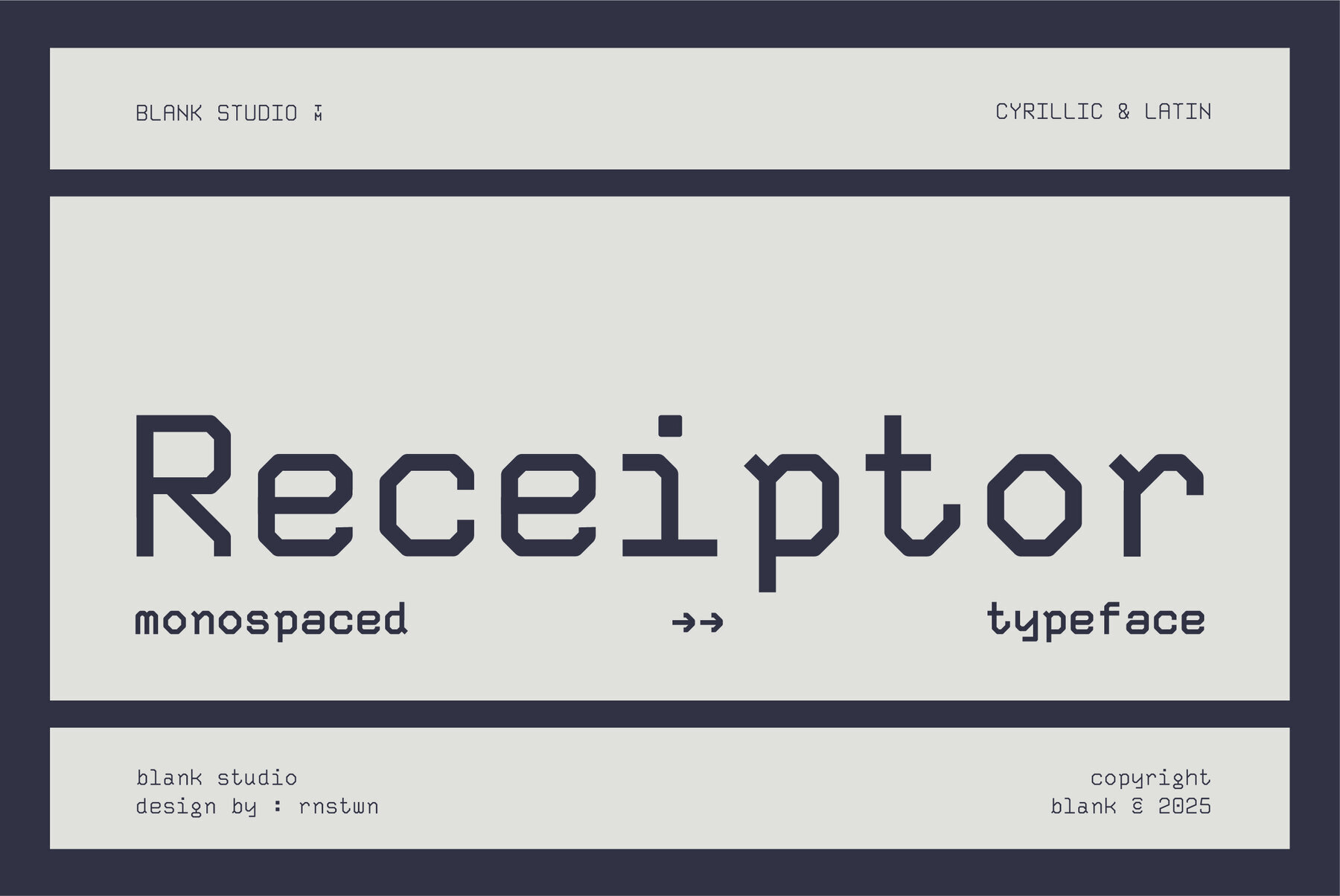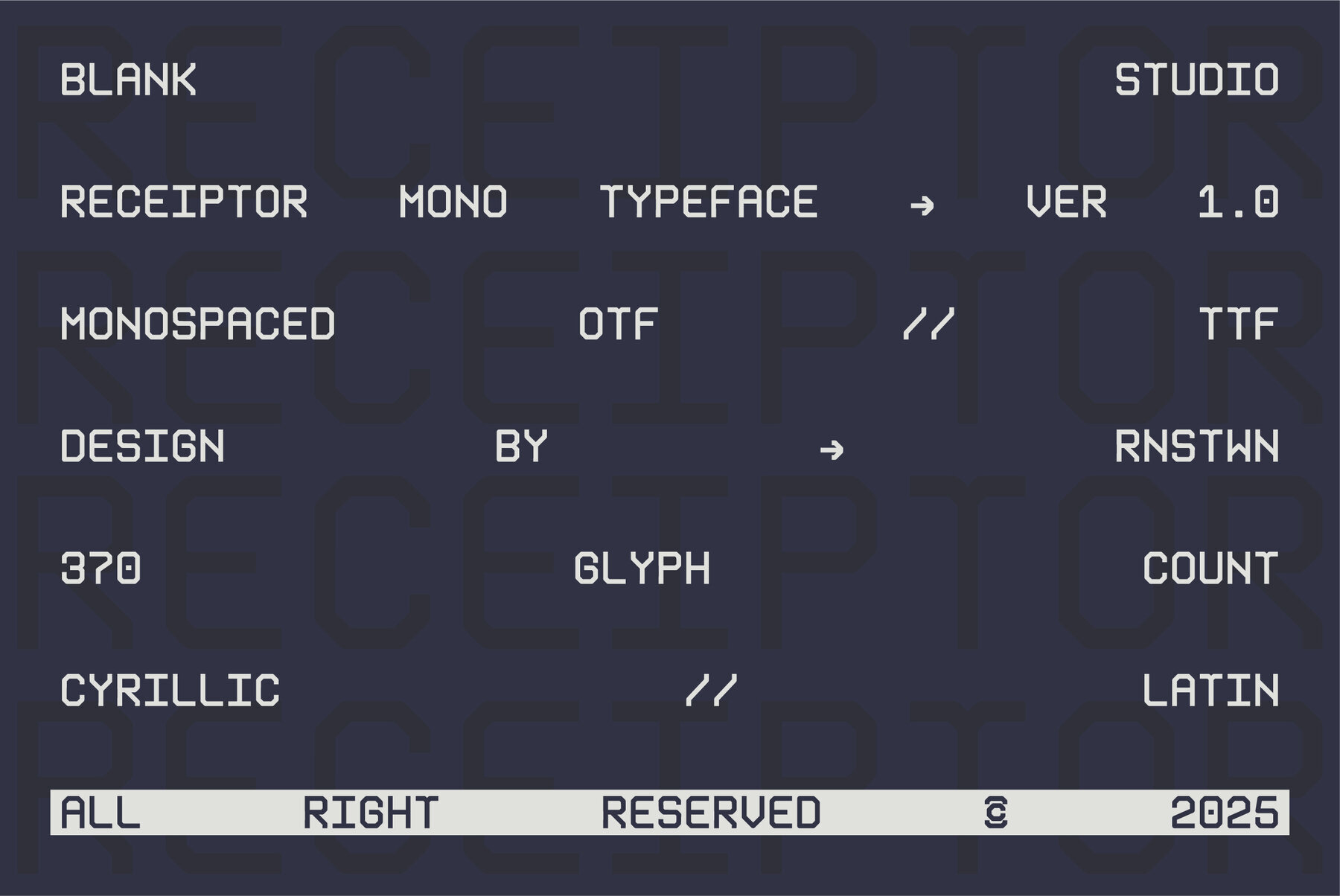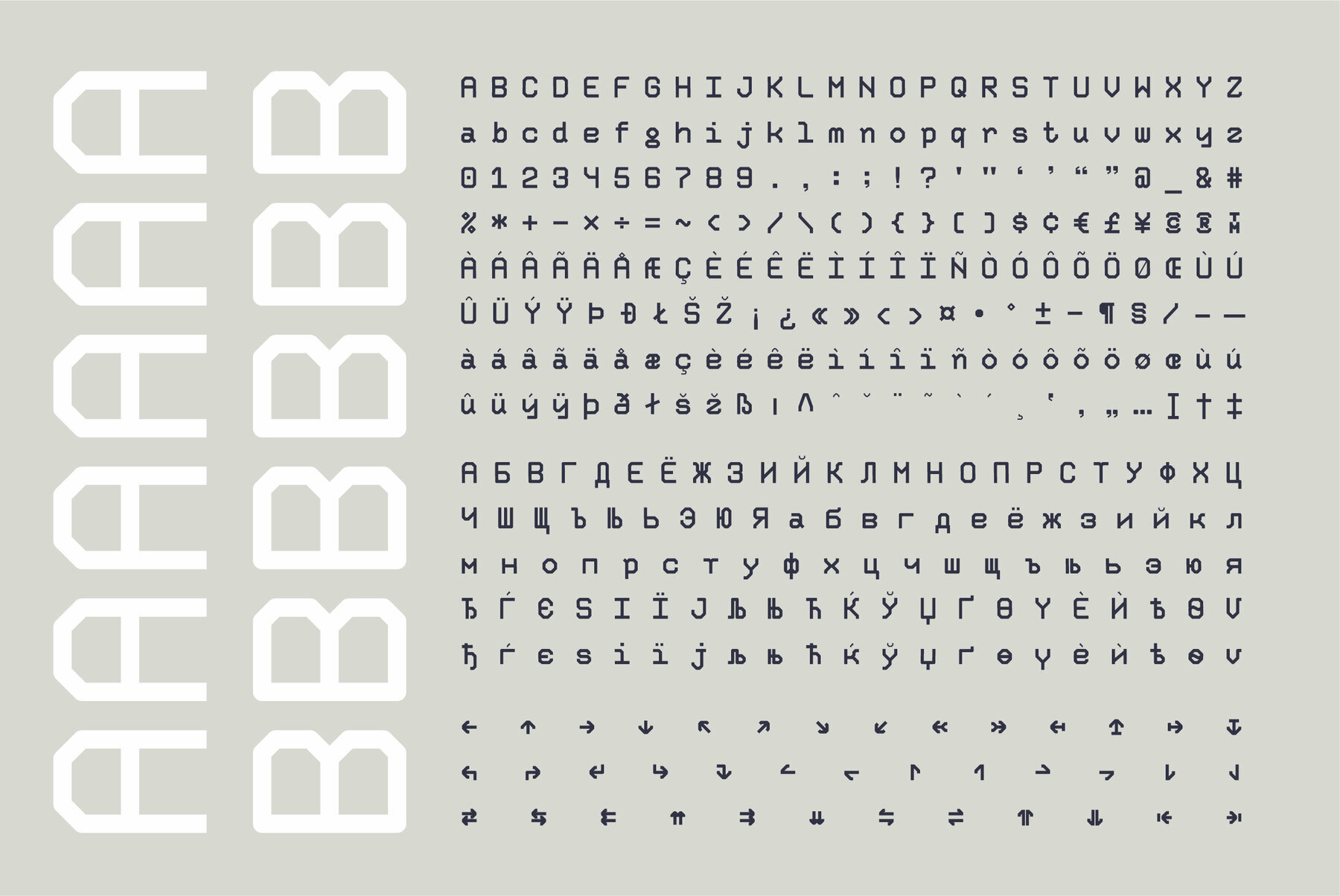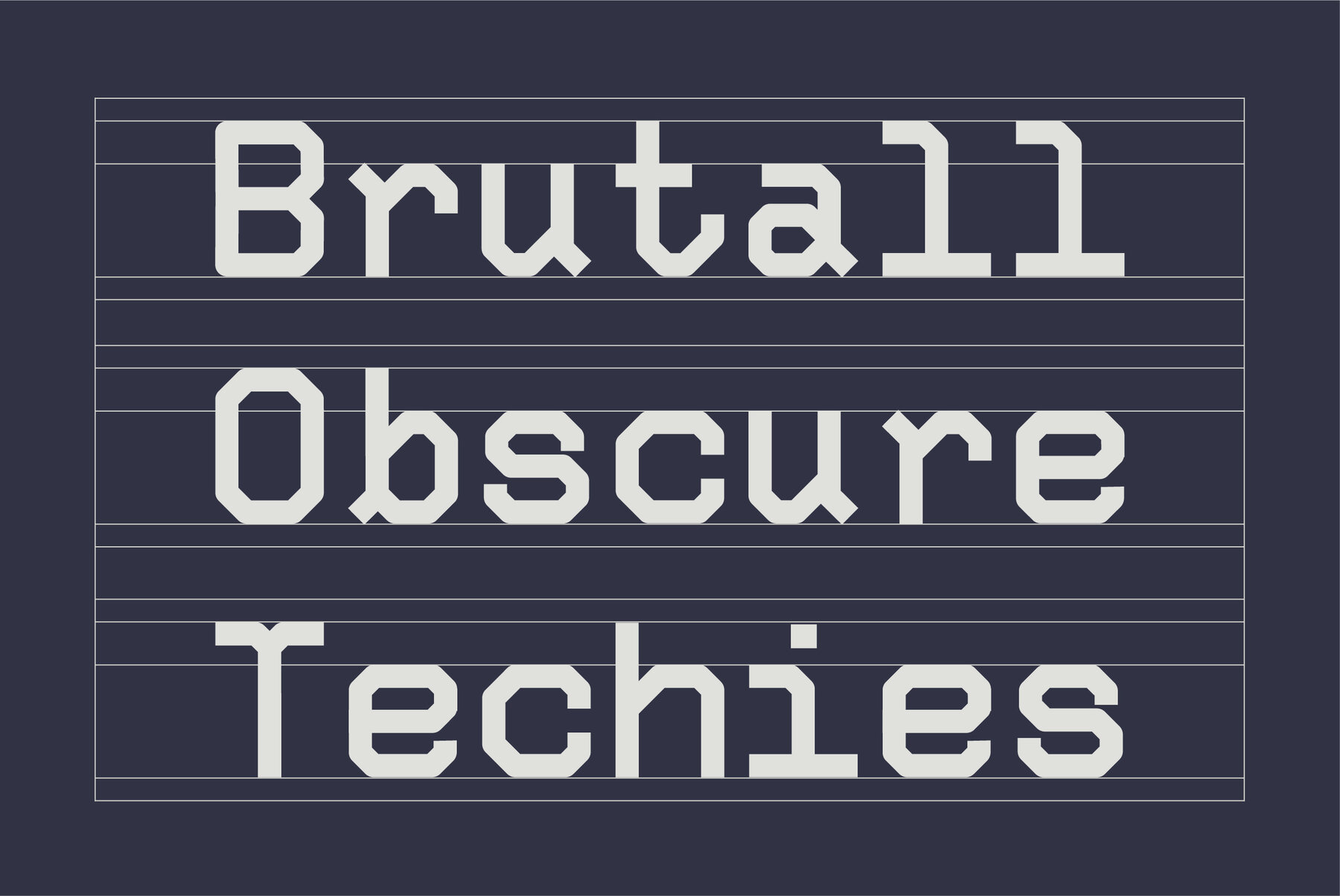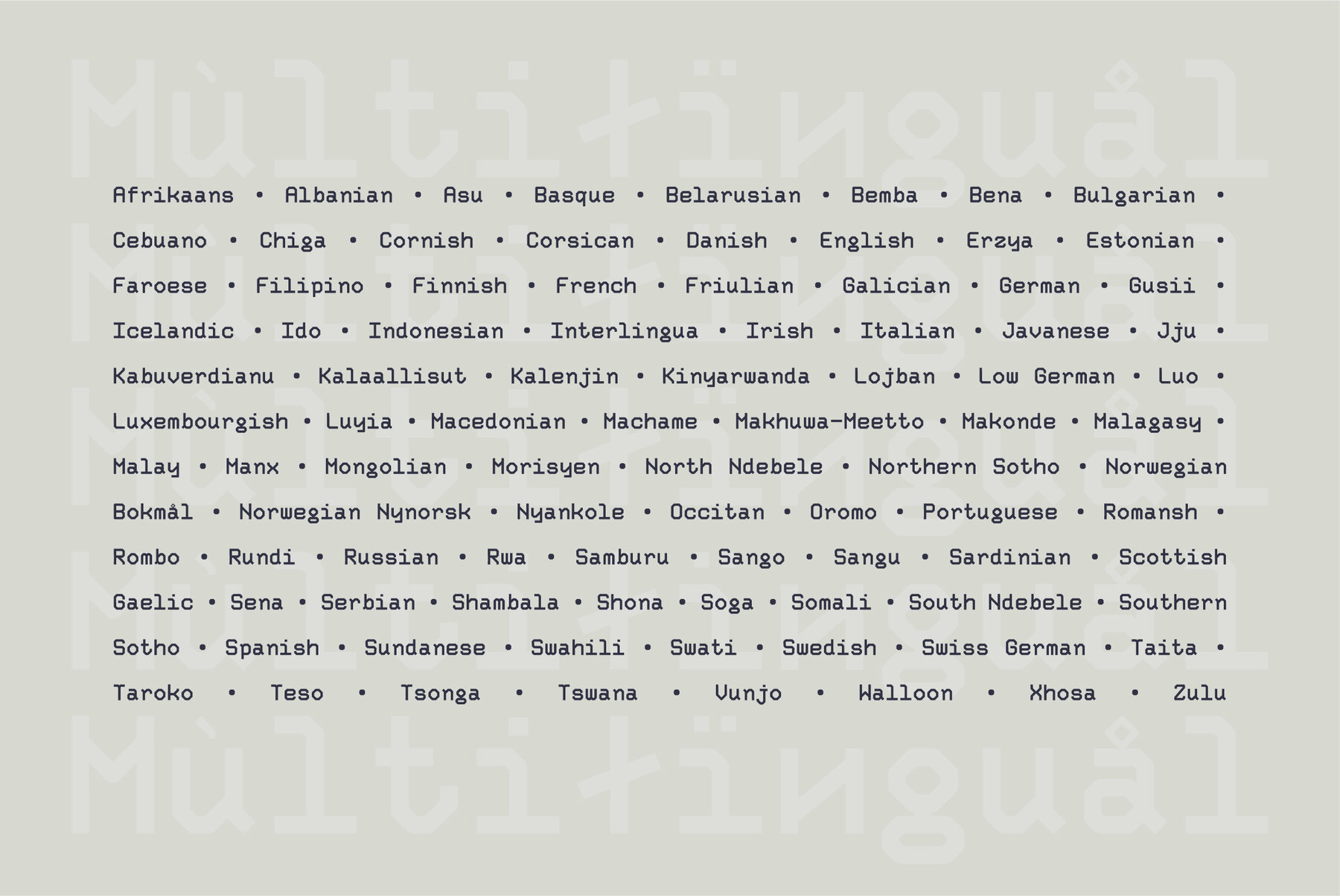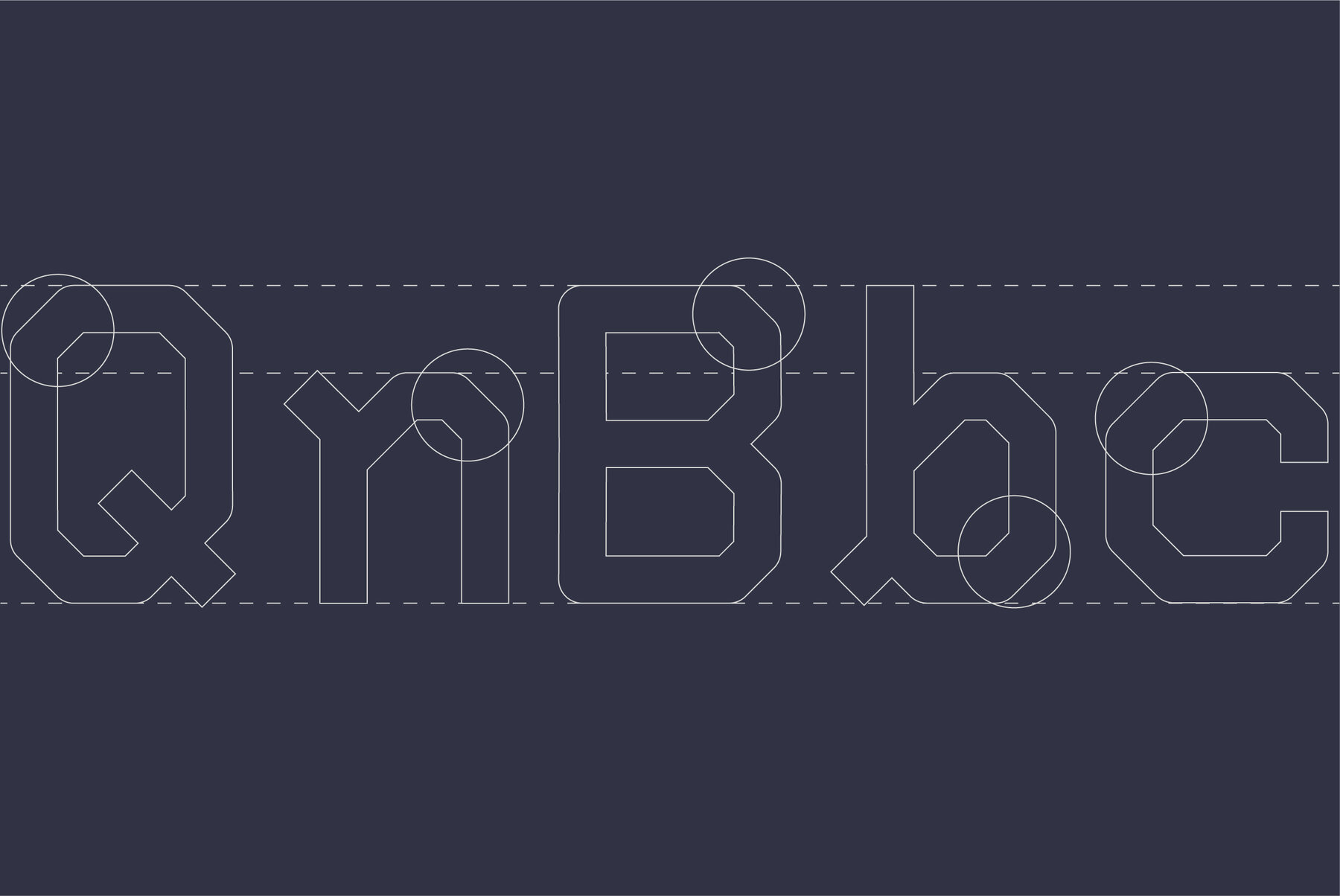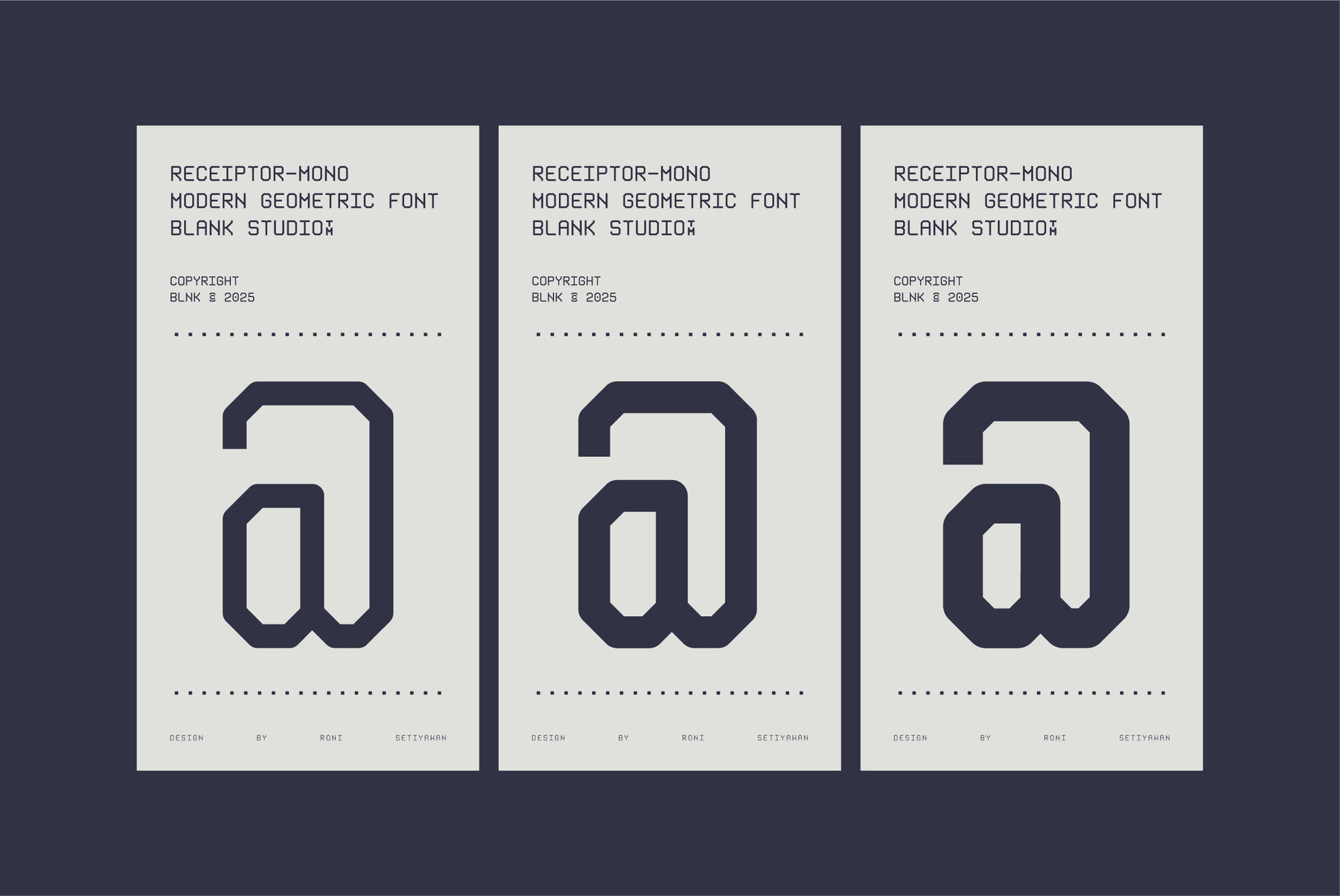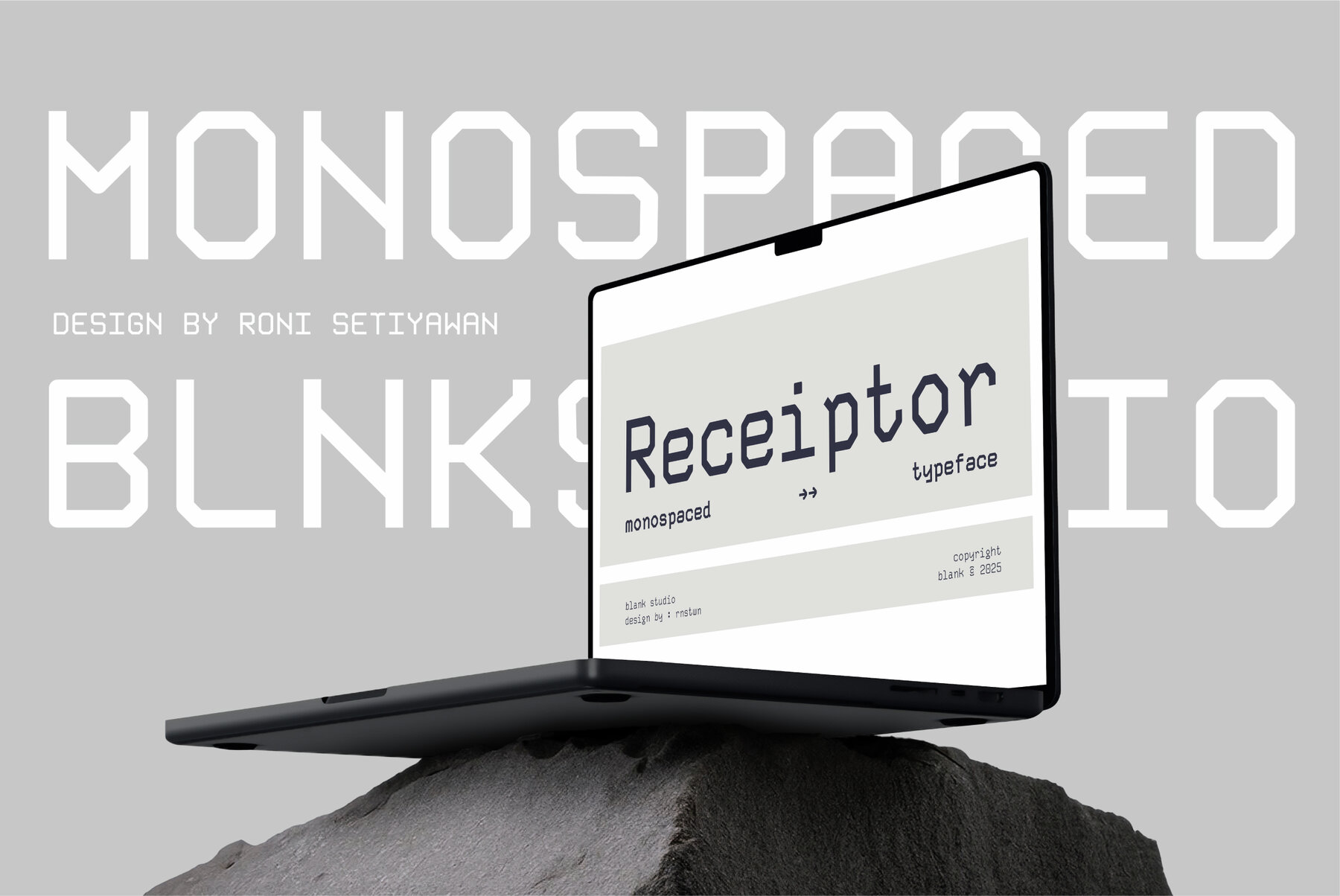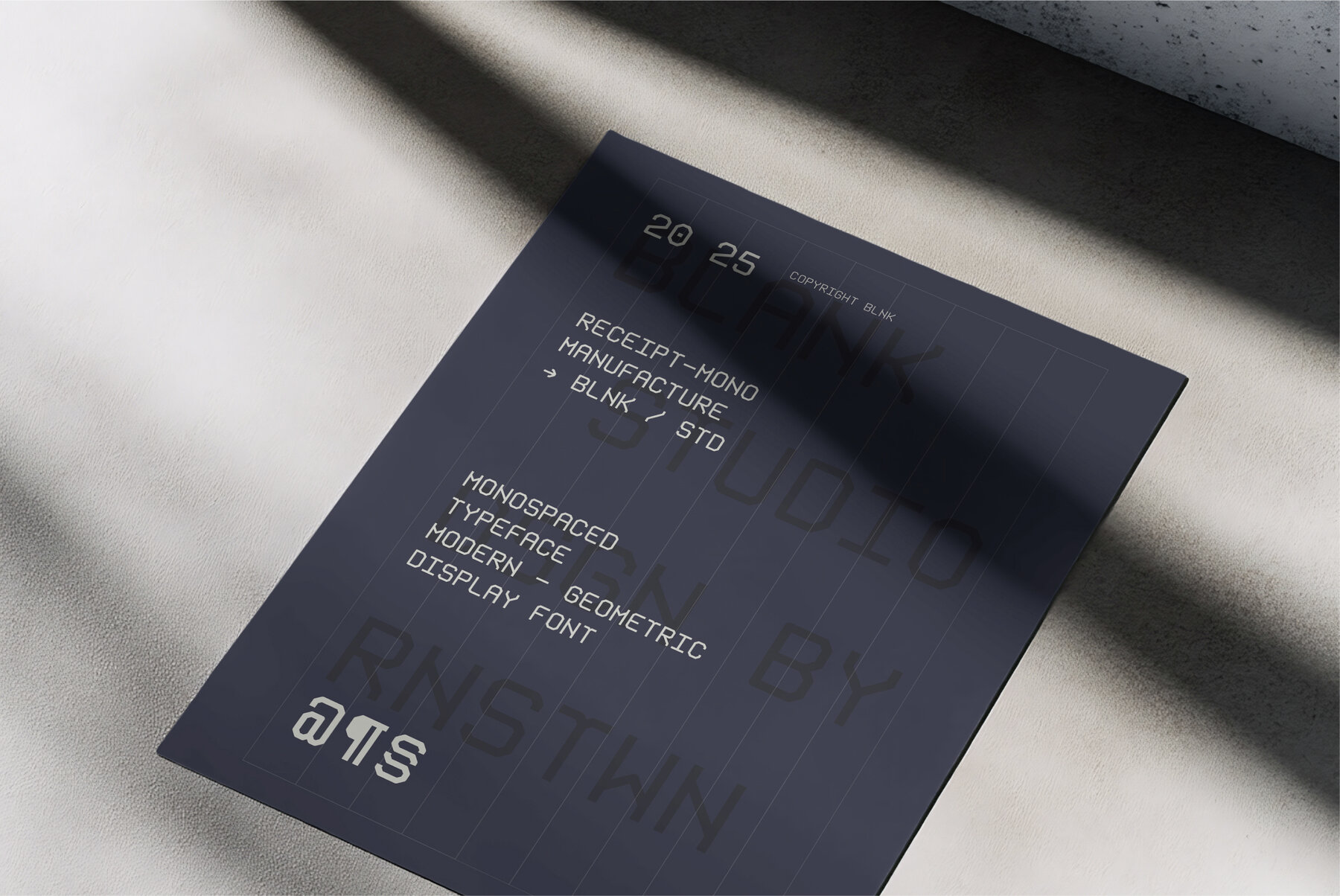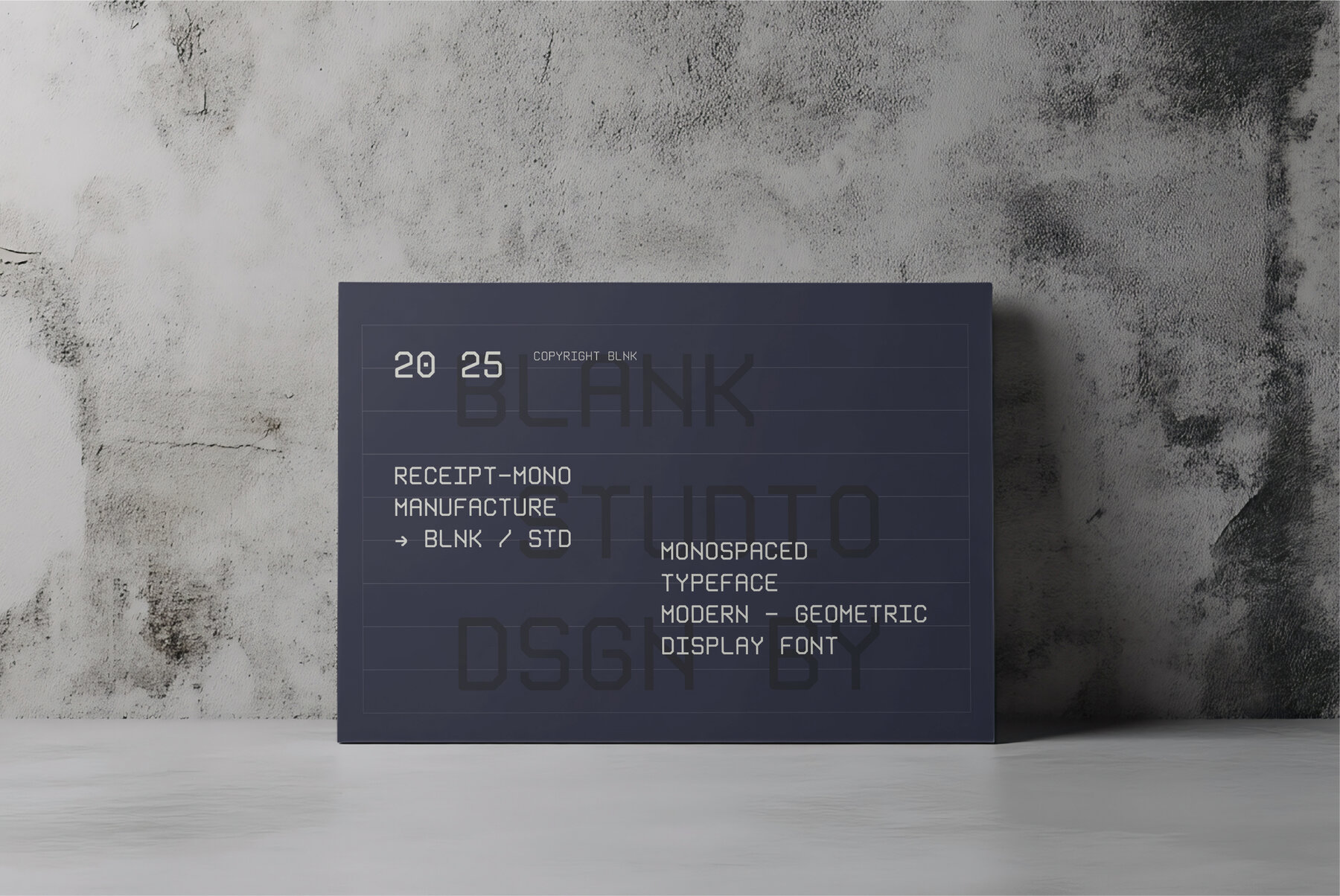
Receiptor Mono Font
Receiptor Mono takes you back to the days of retro thermal paper typography, inspired by the timeless appeal of receipt printers and digital cash registers. With its rigid grid structure, angular counters, and slight eccentricities, this font introduces a nostalgic yet functional flair to your designs. Its bold presence and minimalist rhythm make it ideal for projects seeking to merge vintage tech aesthetics with modern UI clarity. Receiptor Mono supports both uppercase and lowercase characters, numerals, and essential punctuation. This versatility makes it an invaluable asset for both creative and utility-driven projects.Receiptor Mono: A Nostalgic Monospaced Display Font